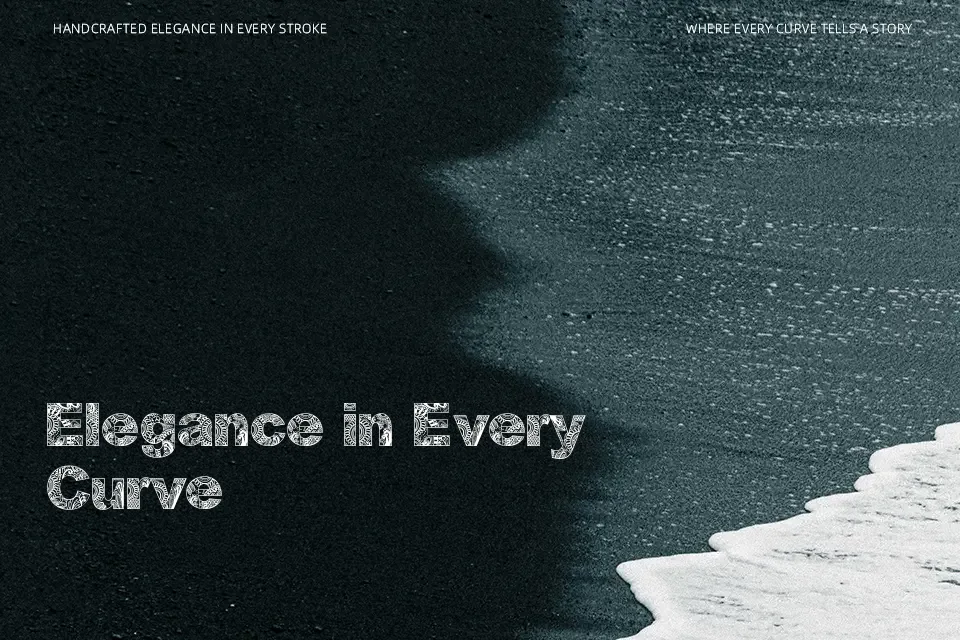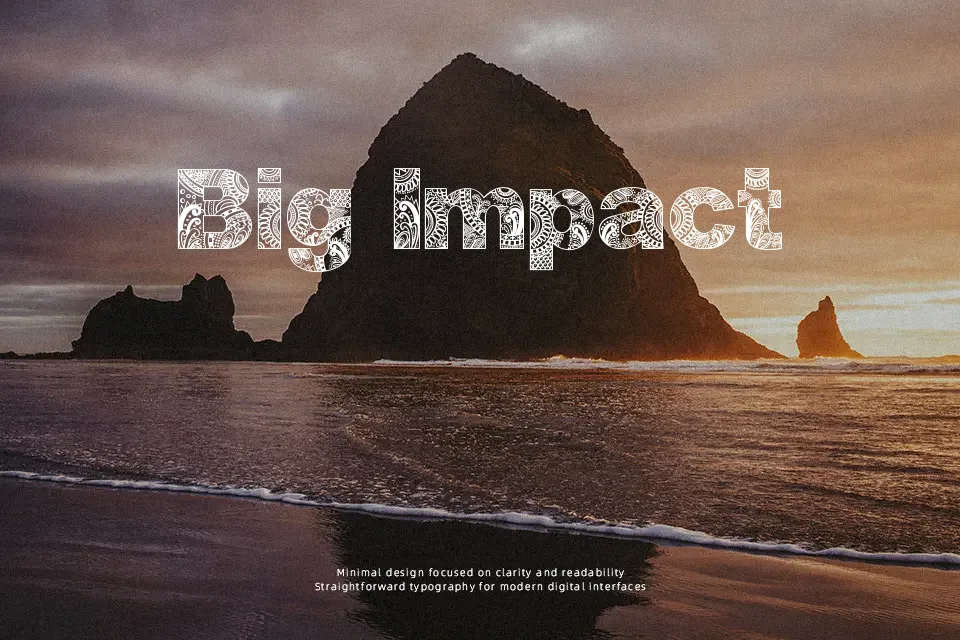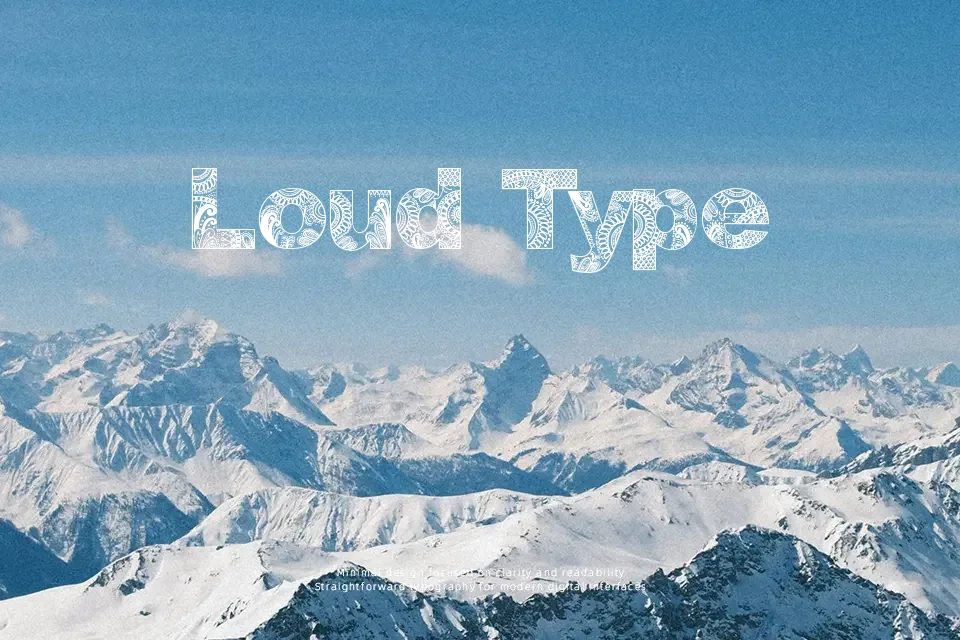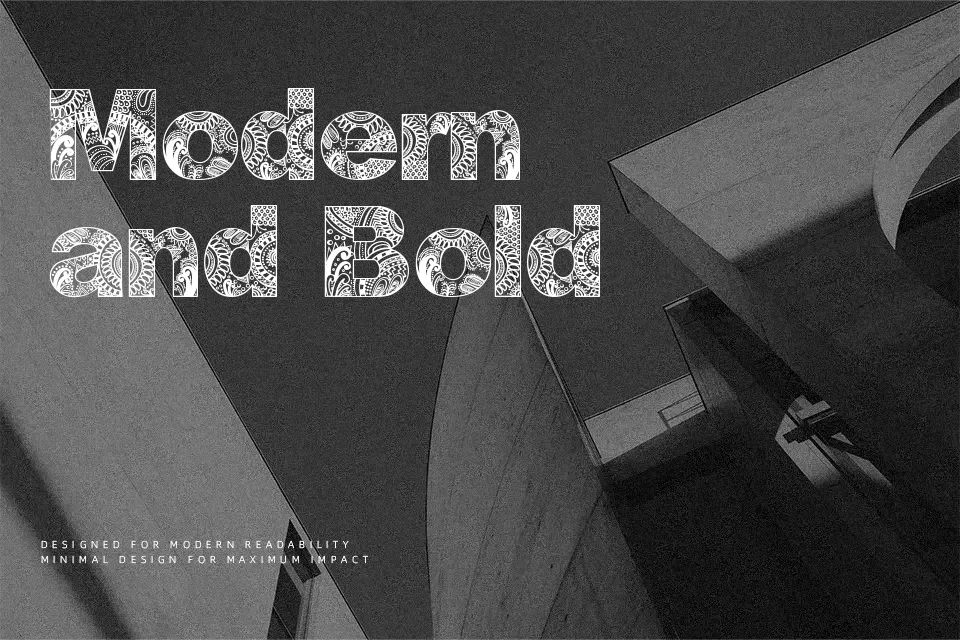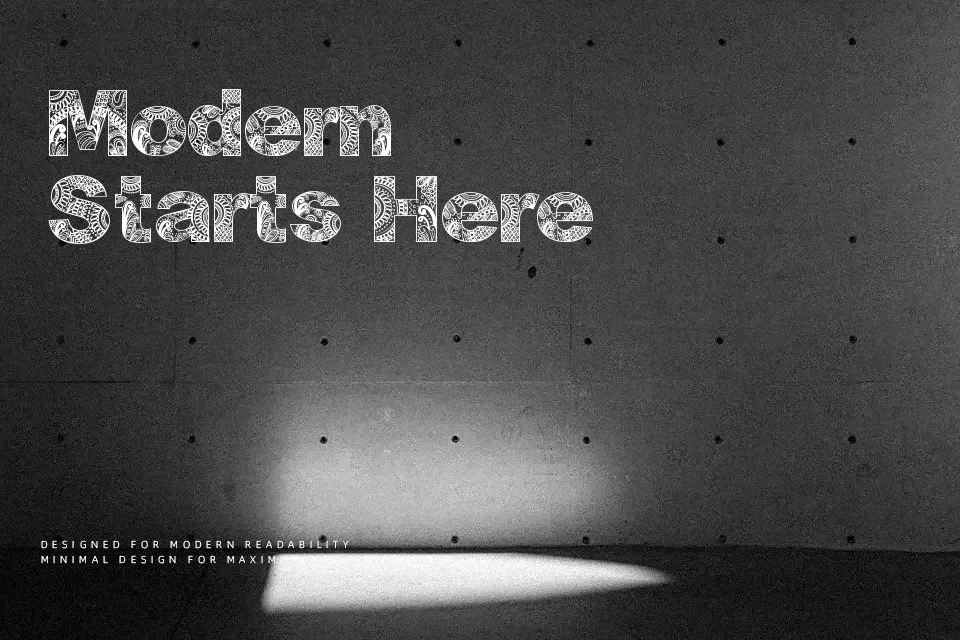
Batik Worldwide Font
Designed by Letterara
Batik Worldwide combines bold sans serif letterforms with intricate batik-style motifs carved into each stroke, giving every character a patterned, handcrafted feel. The spacing is relatively tight and the contrast inside the shapes is high, which pulls the eye toward short words, logos, and decorative headlines rather than long reading lines. Visually it leans decorative and luxurious, making it suitable for cultural festival posters, fashion or batik-brand logos, boutique packaging, and social media graphics that need an ornate focal point. However, the internal detailing can reduce legibility at small sizes or in dense paragraphs, so it works best when used sparingly as a display accent rather than a primary body text font.
cultural event posters
fashion or batik-brand logos
decorative headlines on social media
boutique or craft packaging
small-size captions
data-heavy editorial layouts
Perfect for branding, fashion, and headline, with a artistic and decorative style.